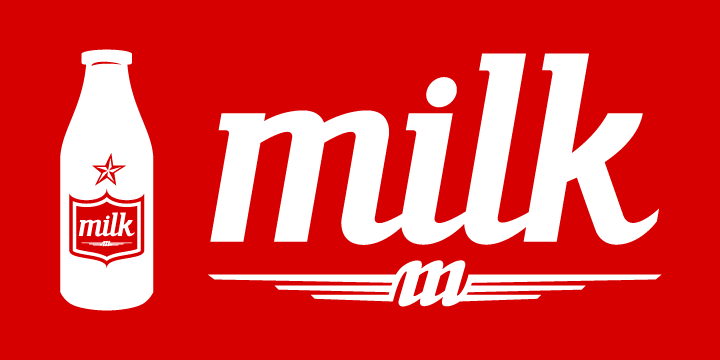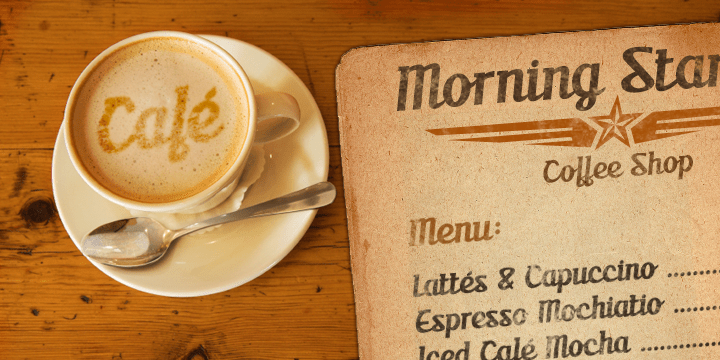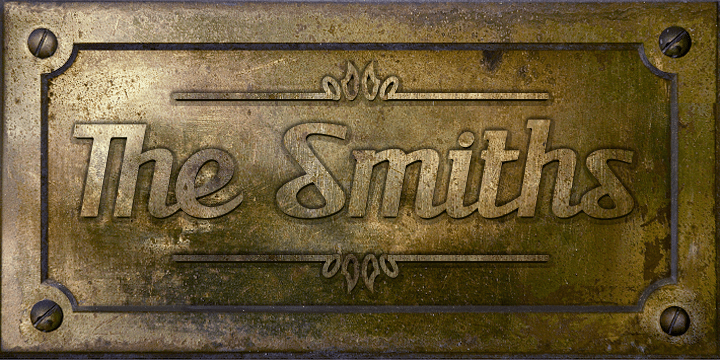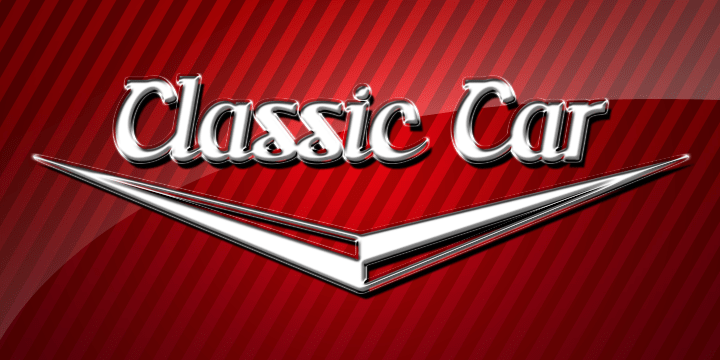
ABTS milk
Font Family by Albatross
ABTS milk is fresh and fun script typeface with a unique blend of masculine, feminine, slab, serif, and sans-serif characteristics. The combination creates endless possibilities for different applications and breathes more personality into the typeface itself. With 384 glyphs, ABTS milk covers a wide range of languages and dialects, and also includes symbols, as seen in the gallery images.